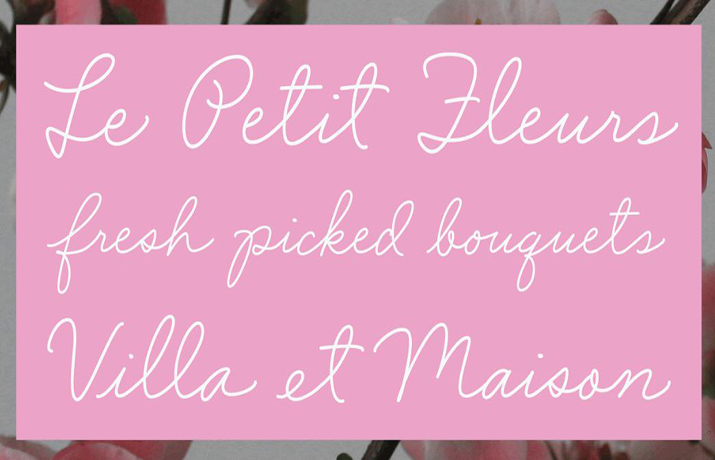
Said in Script Bold Font is a cursive script typeface that was designed by Jess Latham and published by Blue Vinyl Fonts. Said in Script contains 2 styles.
This font has a charming, nostalgic style that is perfect for projects that need a touch of vintage elegance. The font features sophisticated OpenType features that give it an authentic, hand-drawn feel.
This playful detail adds a touch of whimsy and makes the font ideal for romantic or lighthearted design projects.
Said in Script Bold typeface is a versatile font that can be used for a variety of projects, including branding, packaging, posters, flyers, headers, cards, invitations, and more.
Its elegant, flowing curves and unique character alternates make it stand out from other script fonts and give designs a distinctive look.
With this help, you can create book designs, signatures, posters, special quotes, taglines, book covers, stationery, kids’ bags, fashion magazines, emblems, as well as several other things.
Overall, Said in Script Bold is a beautiful and sophisticated script font that combines vintage charm with modern functionality.